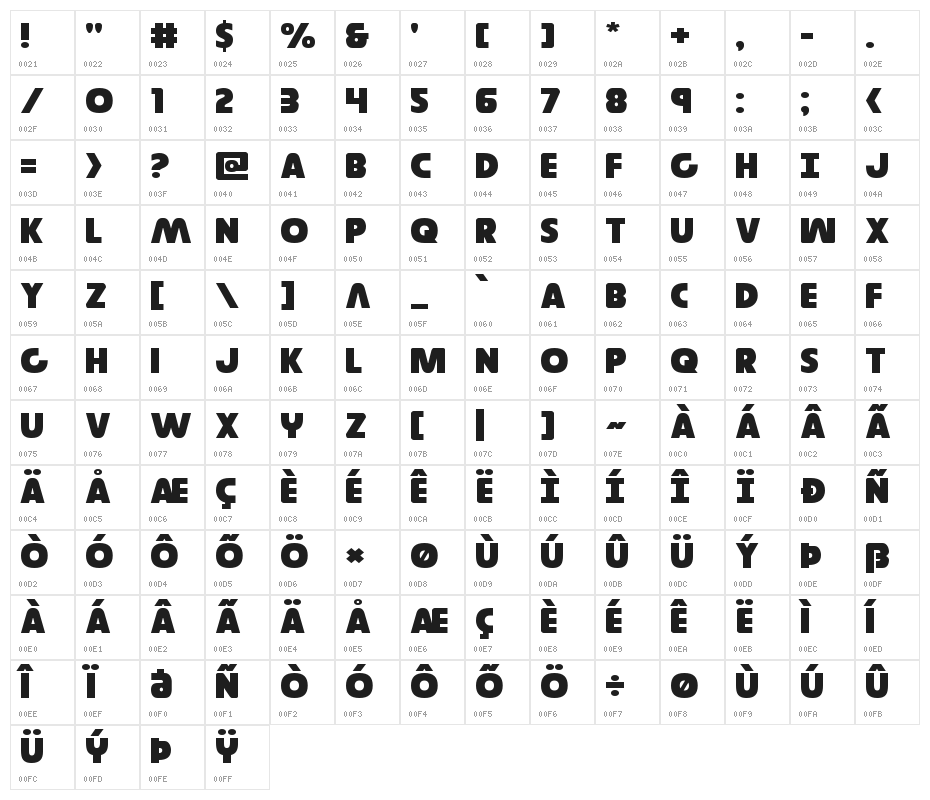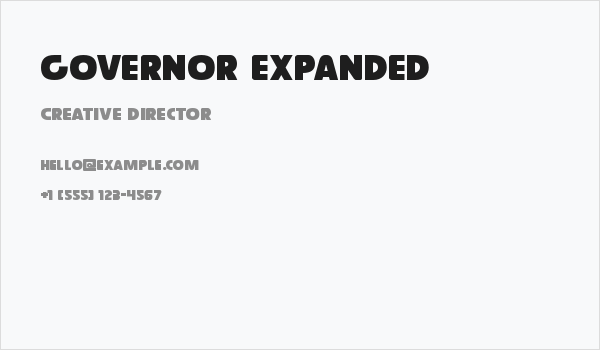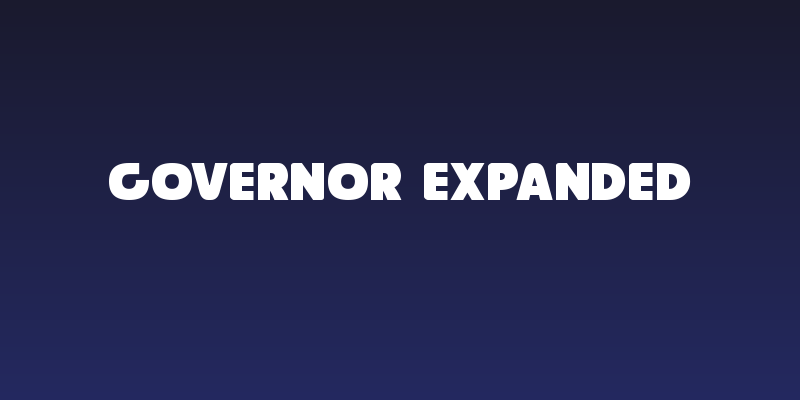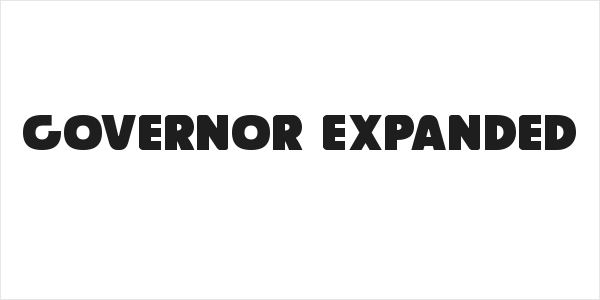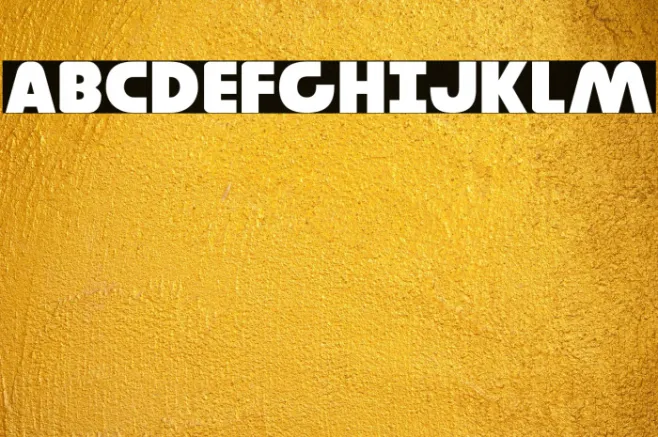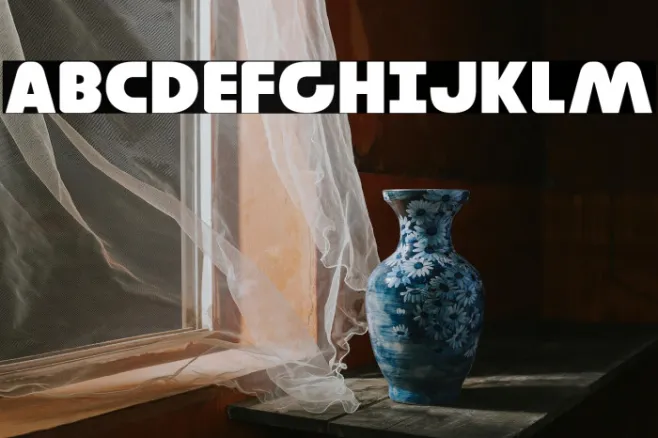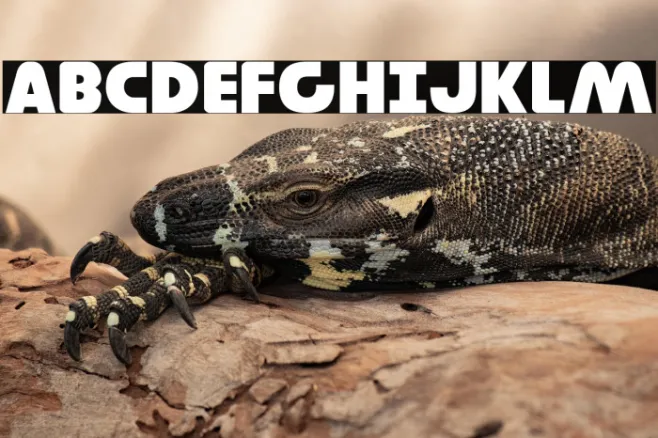
Governor Expanded Font
Governor Expanded Description
This font features bold, rounded characters with a strong presence and a modern appeal. The letters are uniformly thick, providing a consistent and impactful look. The rounded edges soften the overall appearance, making it approachable yet assertive. The font maintains a uniform width across all characters, contributing to its cohesive and structured design. It is highly legible, even at smaller sizes, due to its clear and distinct letterforms. The numerals and special characters follow the same design principles, ensuring a harmonious appearance throughout.
| Use Case | Headlines, Logos, Signage |
| Proposed Projects | Ideal for branding, advertising, headlines, and signage where a strong and modern presence is desired. |